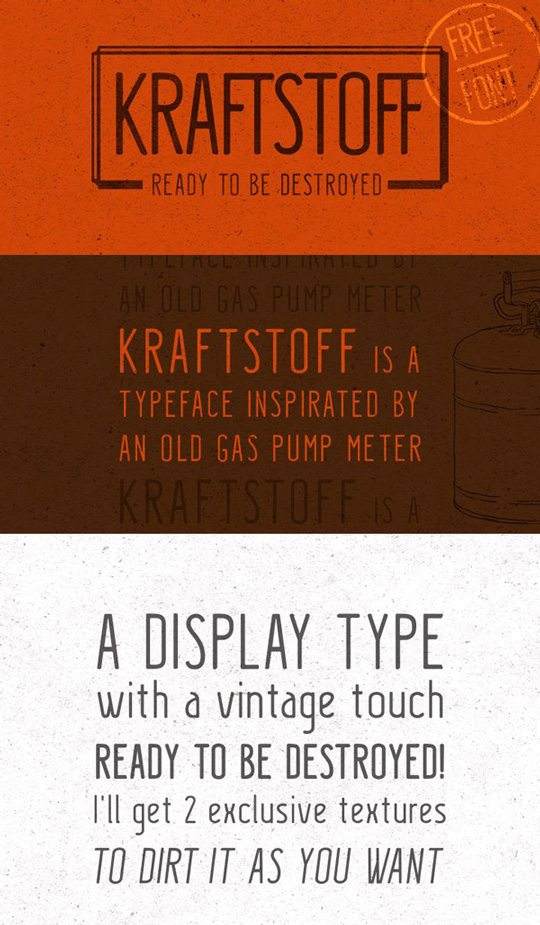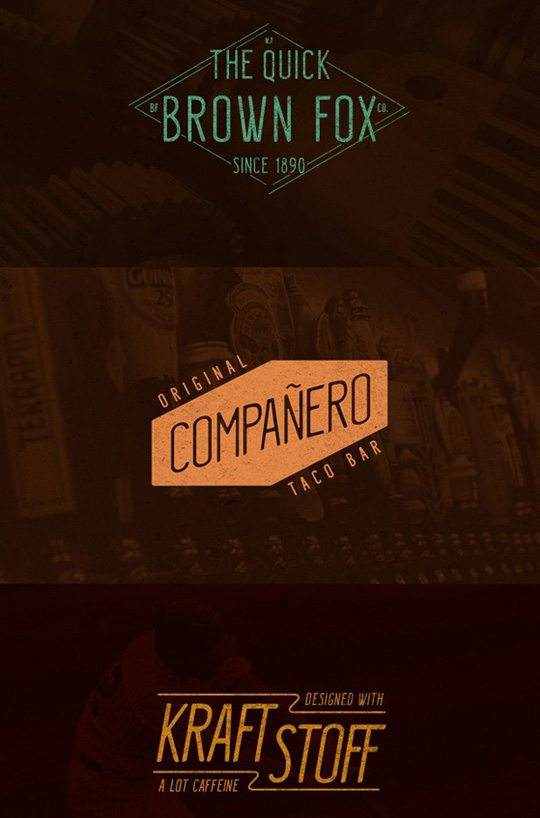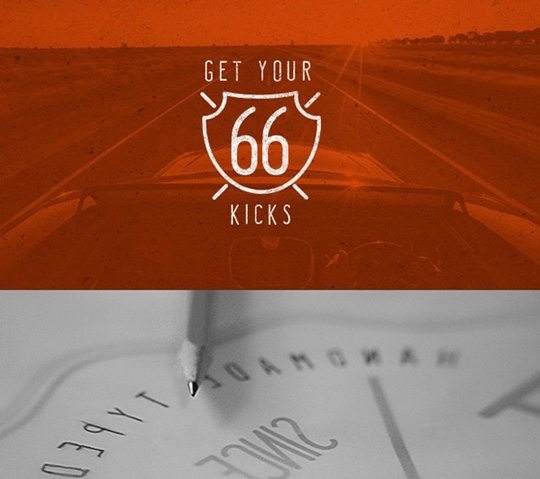
Free Font Of The Day #22 – Kraftstoff Font
Kraftstoff font comess from Guilherme Schneider. Kraftstoff is a typeface based on antique gas pump meters and it is totally FREE.